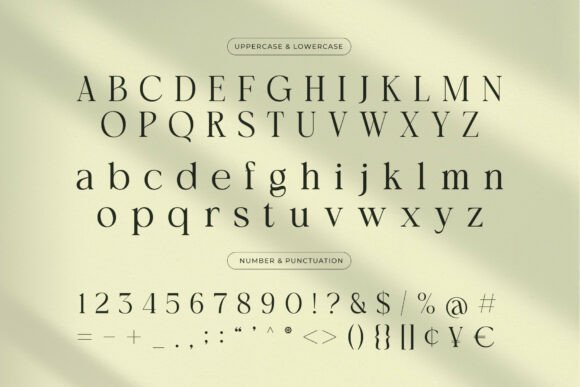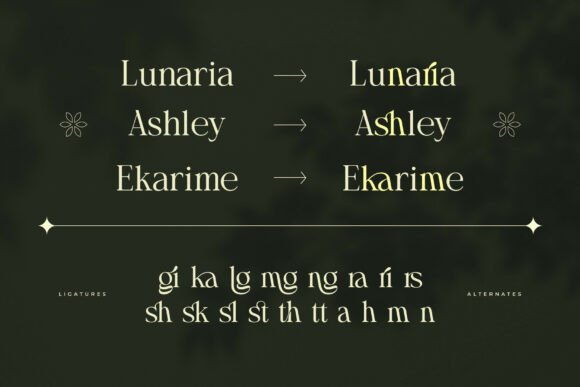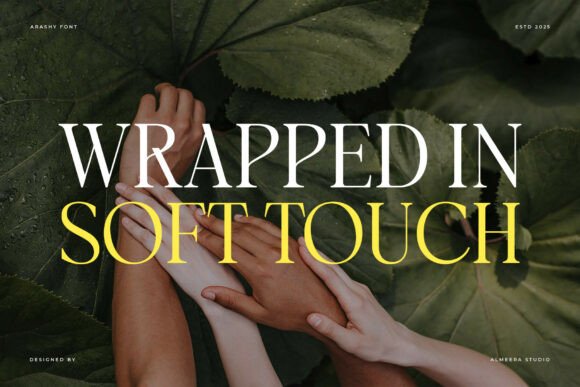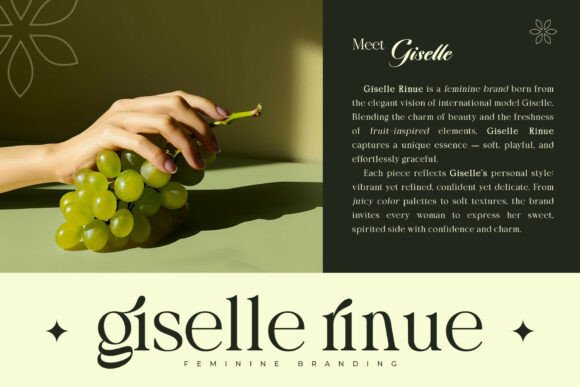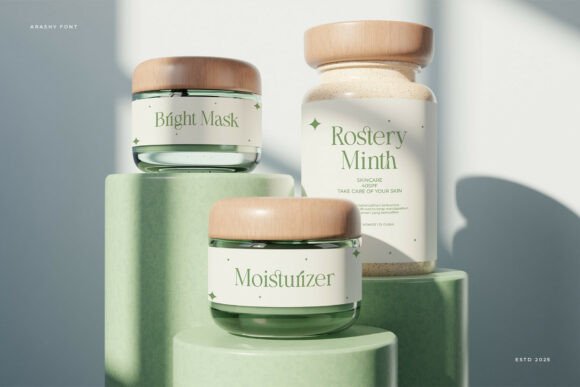
The Elegance of Arashy Font: A Designer’s Delight
I still remember the time I was working on a luxury branding project for a high-end jewelry client. I had spent hours perfecting the design, but something was missing – the right font. I scrolled through countless font libraries, but none seemed to capture the essence of sophistication and elegance I was looking for. That’s when I stumbled upon Arashy Font, and it was love at first sight! 💫
An Honest Review of Arashy Font
What I Love About Arashy Font
• ✨ Refined and elegant serif design with graceful curves and high contrast lines
• ✅ Perfect for luxury branding, editorial layouts, wedding invitations, and high-end packaging
• 💻 PUA-encoded for effortless access to all glyphs, swashes, and alternate characters
• 👍 Stylish and timeless design makes it a versatile choice for premium projects
While Arashy Font is an excellent choice for many projects, there are a few things to keep in mind:
• ⚠️ Some users may find the font’s high contrast lines and elegant curves challenging to read in smaller sizes.
• 🤔 The font’s stylistic alternates and swashes may require some experimentation to get the desired look.
The Backstory of Arashy Font
Arashy Font was designed by a team of typographers who wanted to create a font that embodied the essence of luxury and sophistication. Inspired by classic serif fonts, they crafted a design that combines elegant curves with high contrast lines. The result is a font that is both refined and elegant, perfect for luxury branding, editorial layouts, and high-end packaging.
What is the best use for Arashy Font? Arashy Font is perfect for luxury branding, editorial layouts, wedding invitations, and high-end packaging.
Is Arashy Font PUA-encoded? Yes, Arashy Font is PUA-encoded, making it easy to access all glyphs, swashes, and alternate characters.